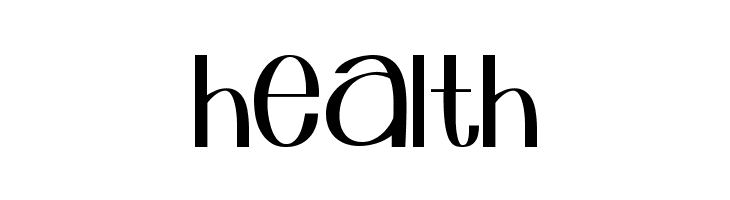
A thin, tall, handwritten script with a casual, organic appearance.
A stylish, cursive script font with a modern handwritten feel.
Bold, casual handwritten script with energetic strokes.
Bold, condensed display font with quirky, hand-crafted shapes.
Bold, pixelated display font with a distressed, digital look.
Playful, rounded handwritten font with an informal, friendly style.
Playful handwritten script with tall loops and a casual, whimsical style.
A bold, bubbly, and psychedelic display font with irregular, rounded shapes.
A decorative font resembling cross-stitch embroidery with a handcrafted feel.
A bold, dot matrix font with a retro-tech, pixelated style.
A bold, striped decorative font with a modern and dynamic style.
A chaotic, distressed font with jagged, uneven strokes for a grunge aesthetic.
A bold, geometric font with sharp angles and unique character shapes.
A bold, angular font with a geometric style, perfect for striking headlines.
A casual, handwritten font with smooth, fluid strokes and a lively appearance.
An elegant, flowing script font with ornate, interconnected letters.